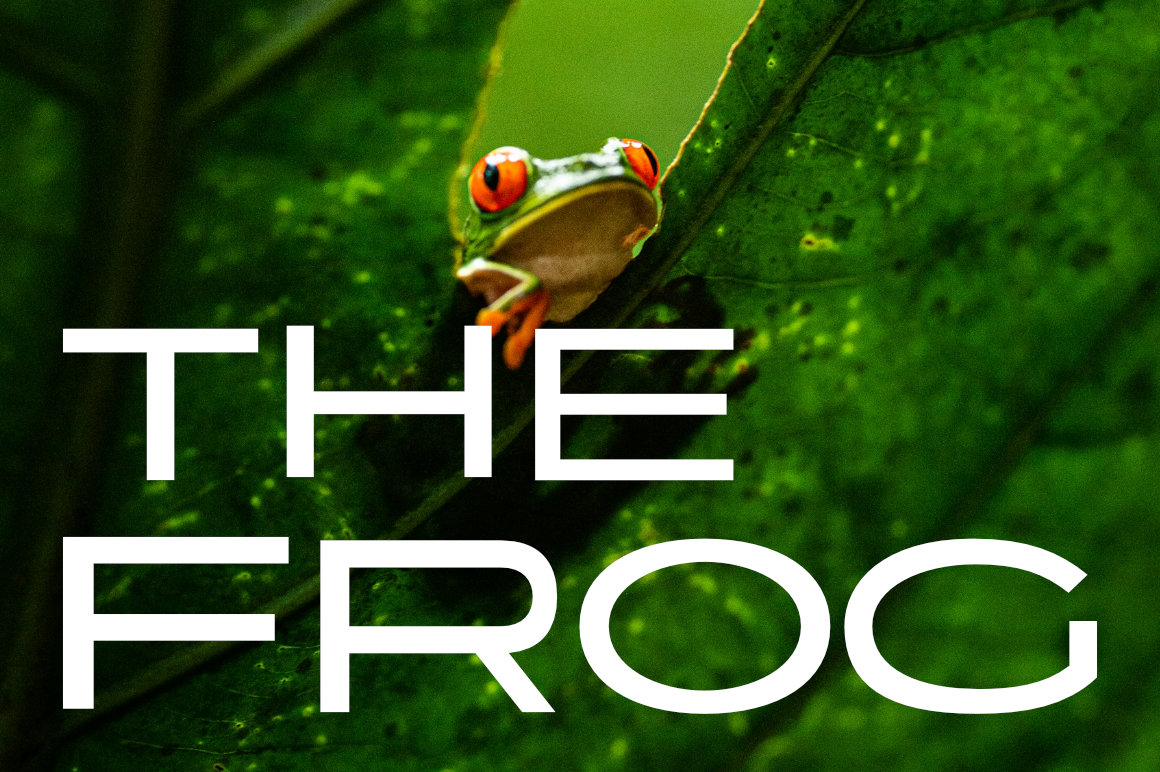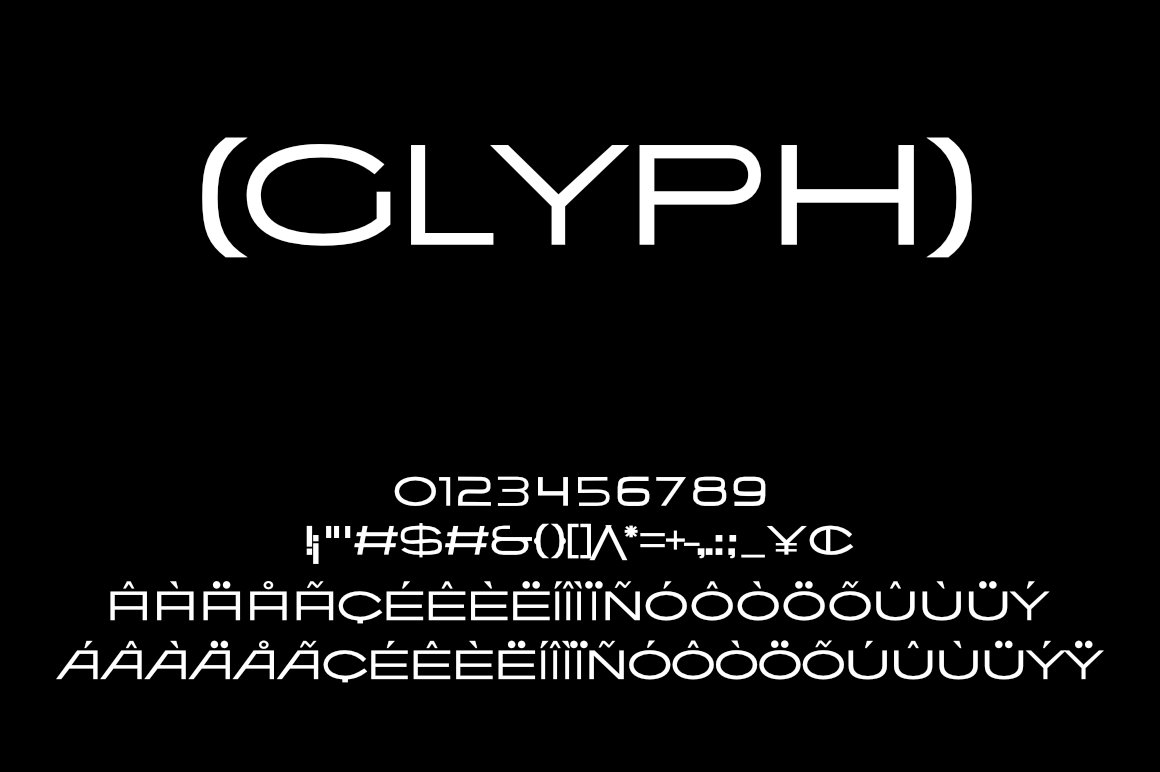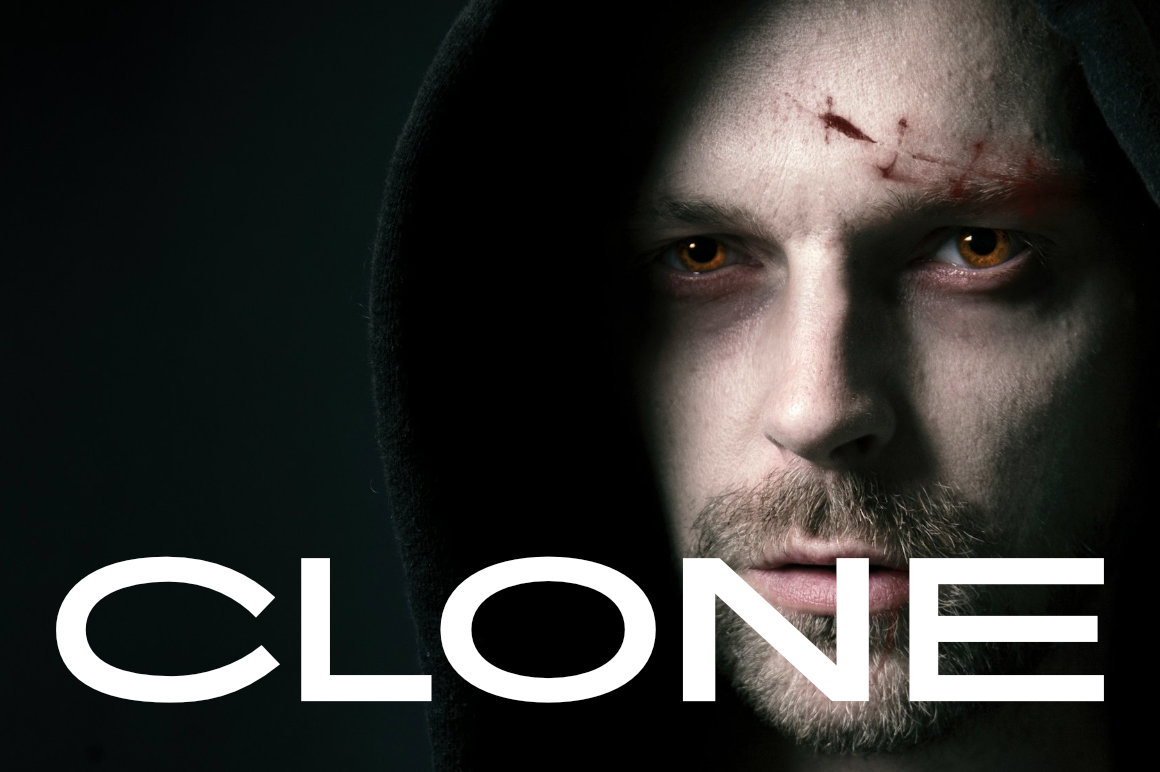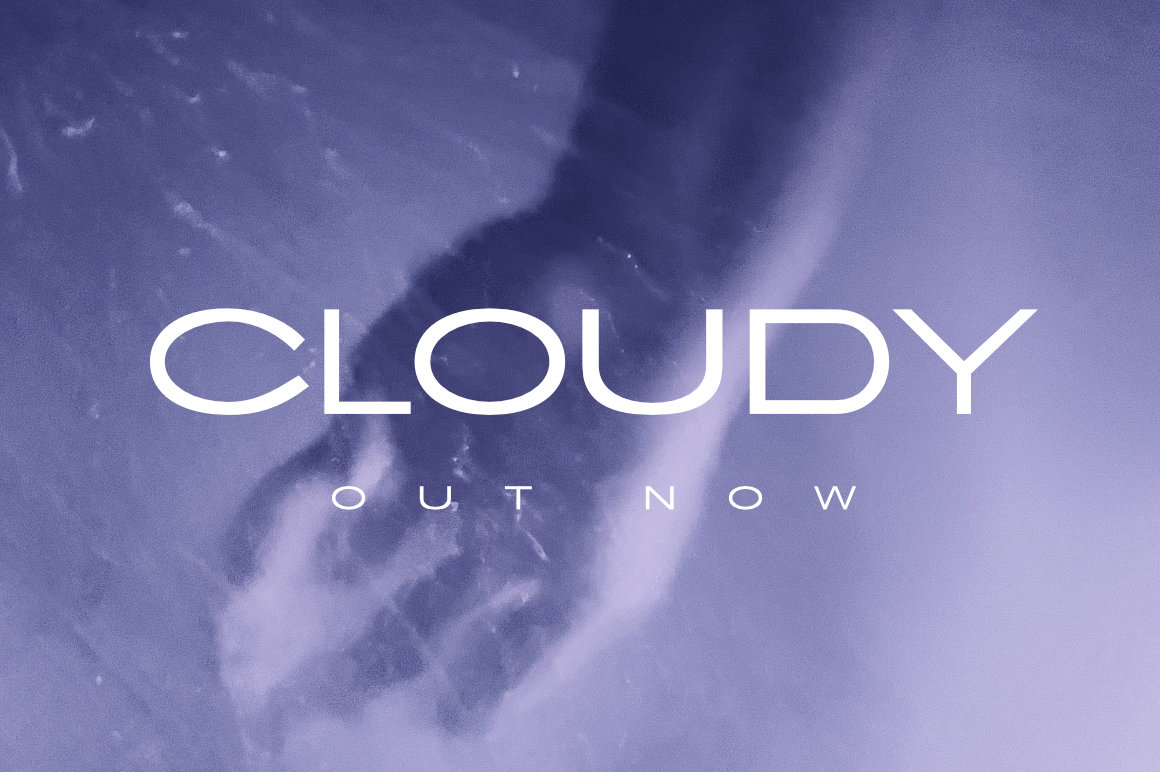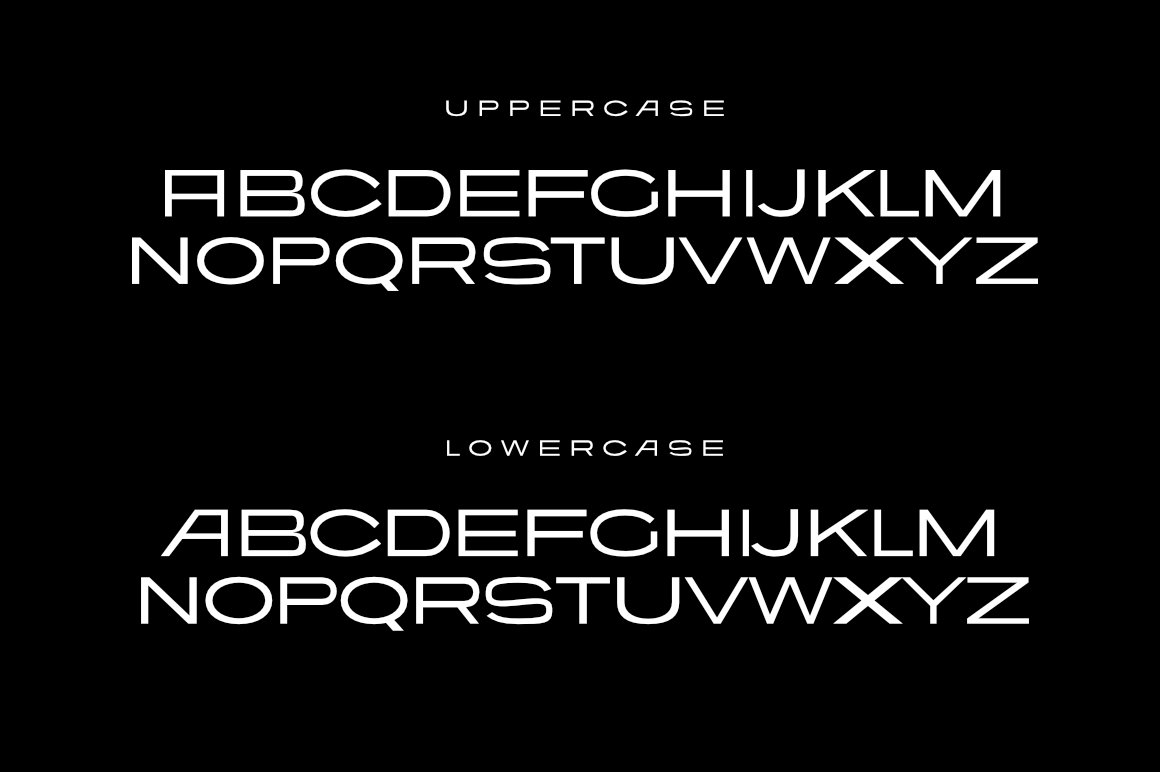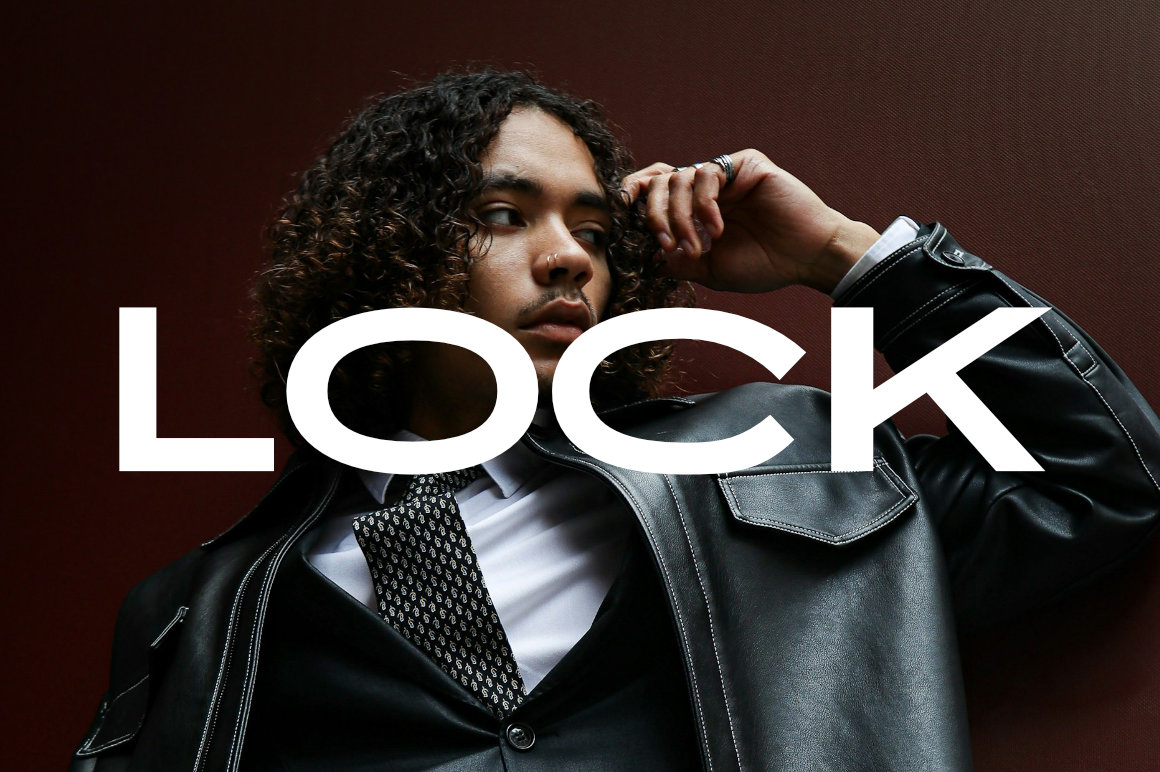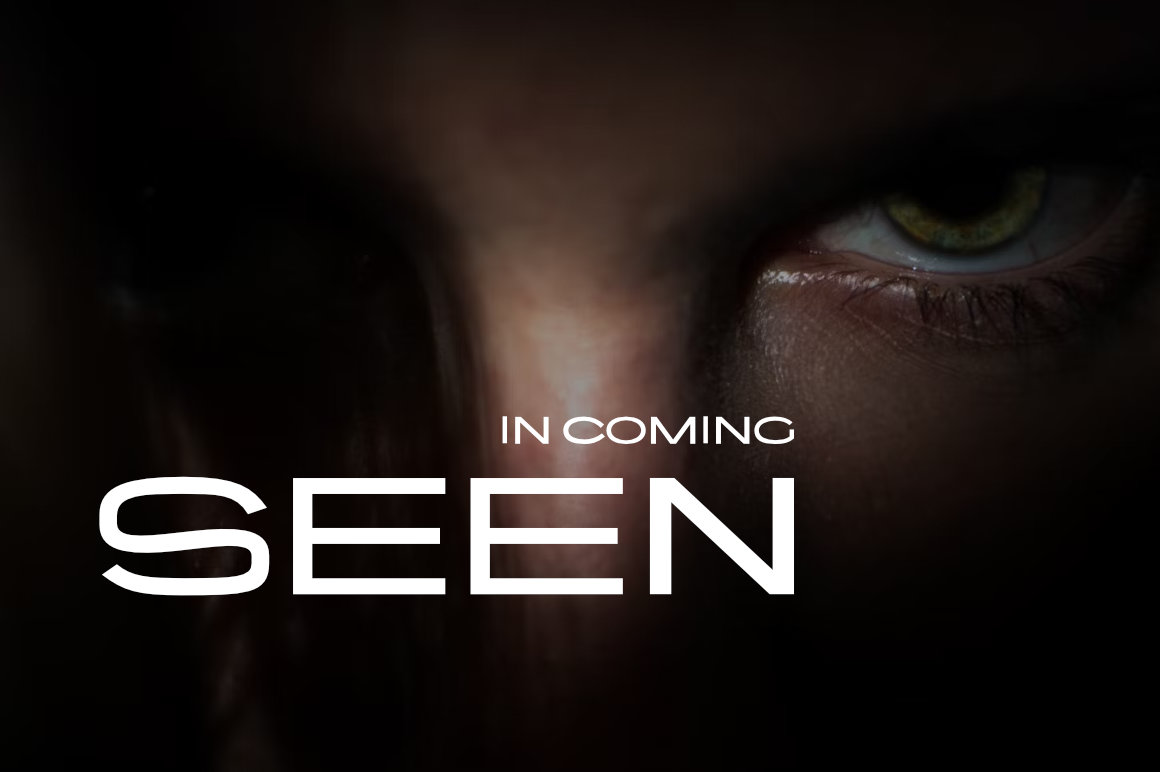
NextF Games Font
Capture the Essence of Now. This font embodies the spirit of contemporary design, blending the aspirational allure of fashion with the cutting-edge precision of technology. It’s a feeling of effortless sophistication, a sense of forward momentum. It's the visual voice of the future, today.
Additional Weight
Italic
Versatile Styles